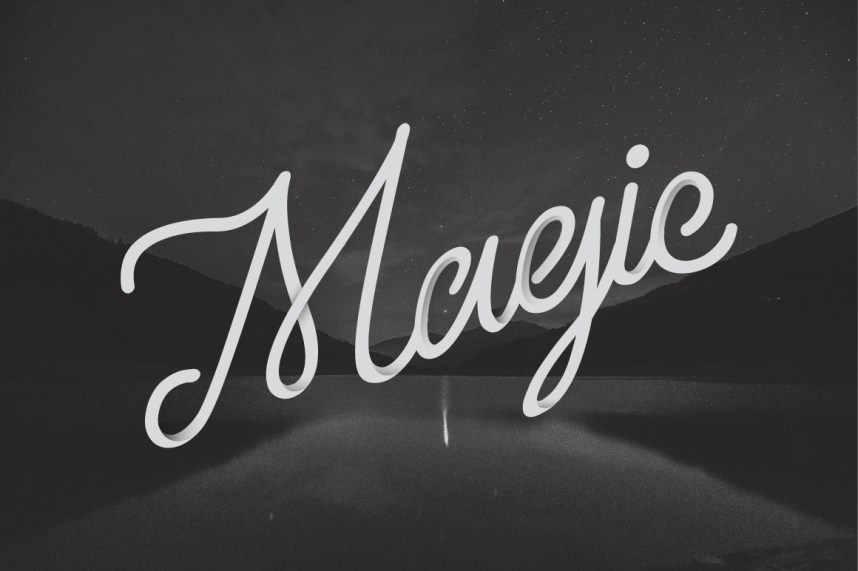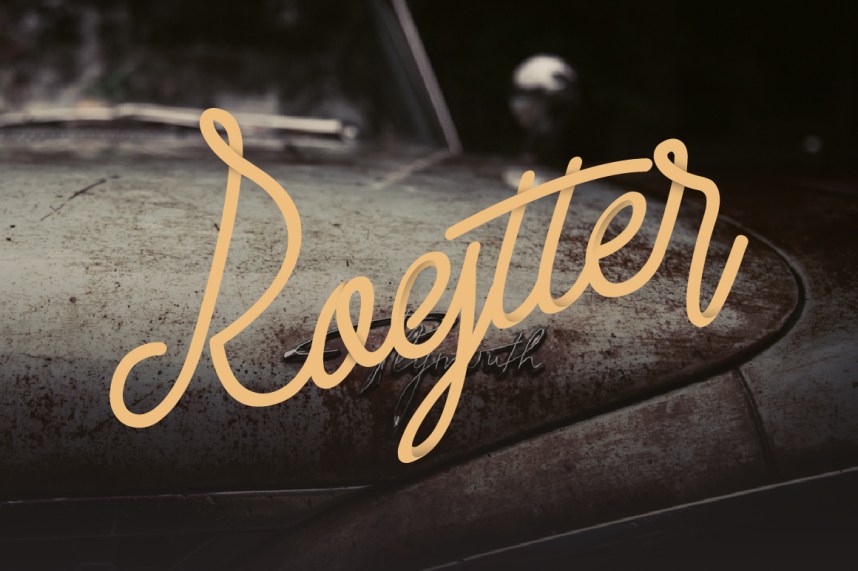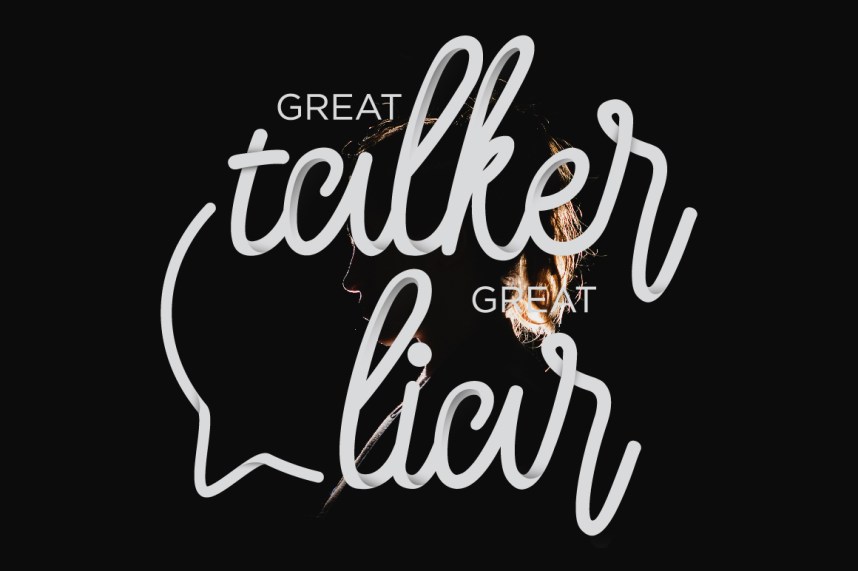
Larquette Script Font
Larquette Typeface Script
Introducing Larquette Script Font! Larquette Script designed and shared by ndro. Larquette Typeface is a modern typeface script with monoline basic so nice looking, keep it simple typeface and clean but with a new modern touch. Perfect for product packaging, branding, logo design, blog posts, wedding calligraphy or just for fun!